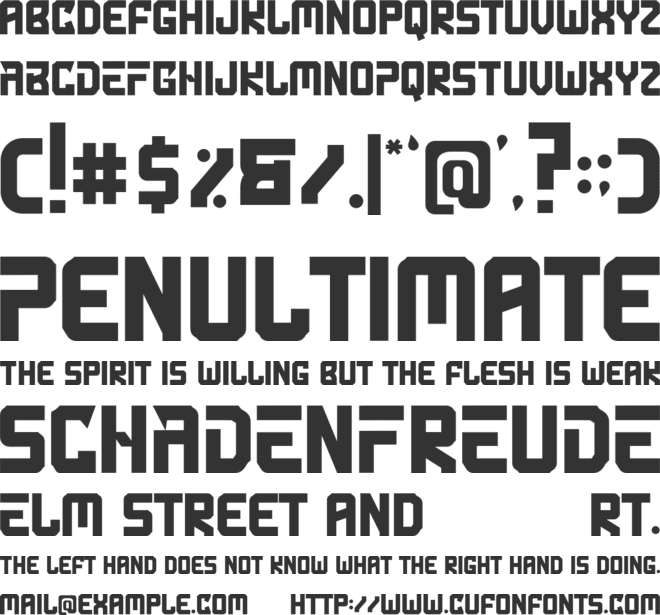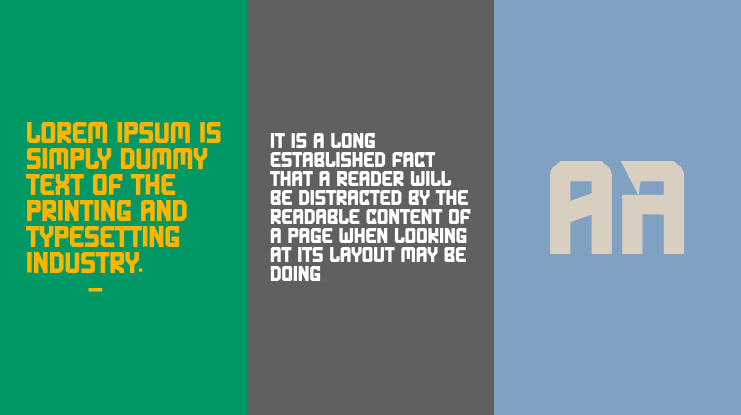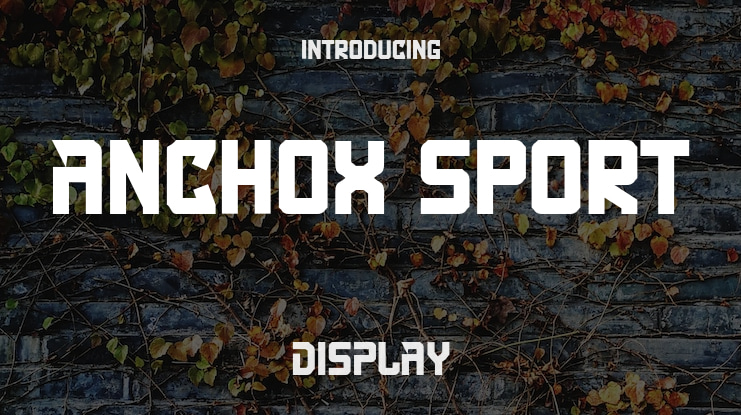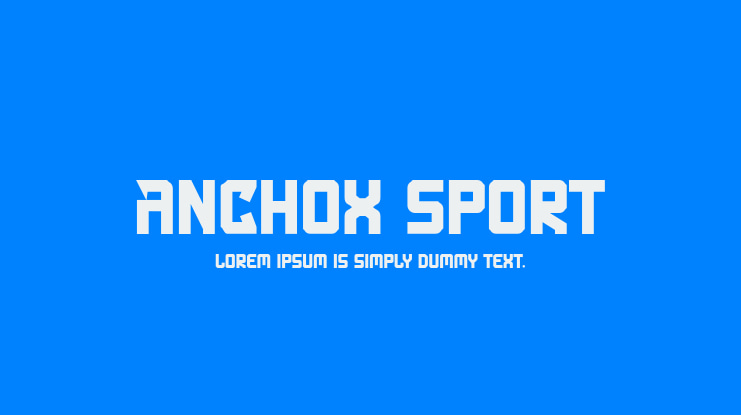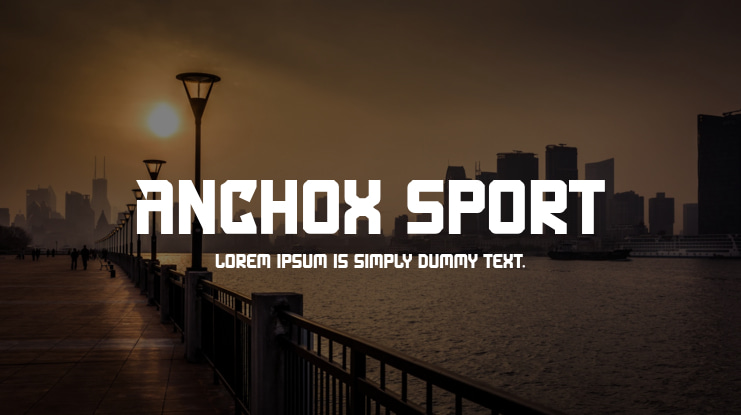
Anchox Sport Font
Anchox Sport - Display Font
Anchox Sport Display Font suitable for logos, posters, sport, modern advertising design, product labels, t-shirts, youtube thumbnail/cover, poster quote, editorial design, book / cover Title, website / blog, social media post, packaging designs and other designs.